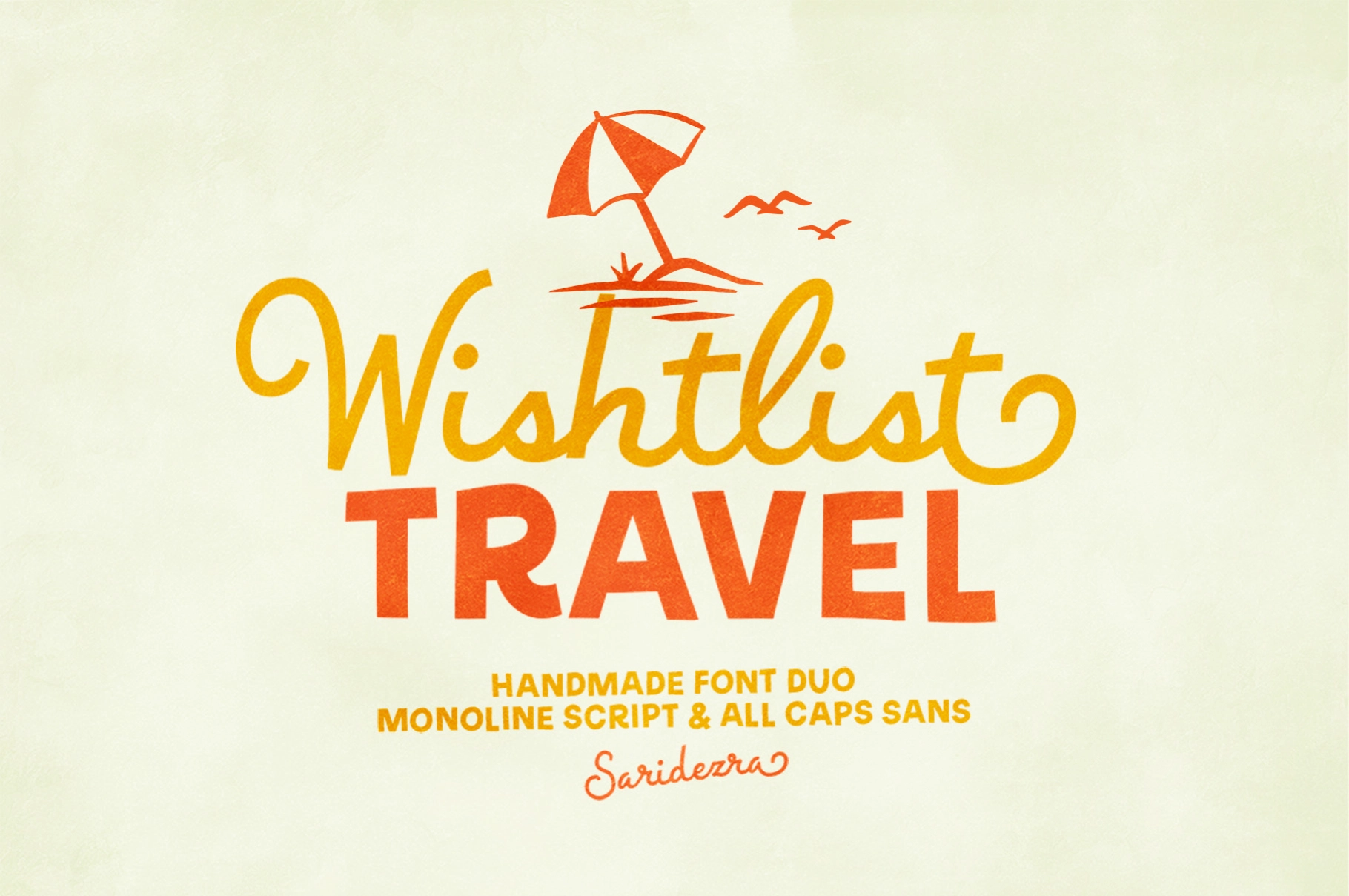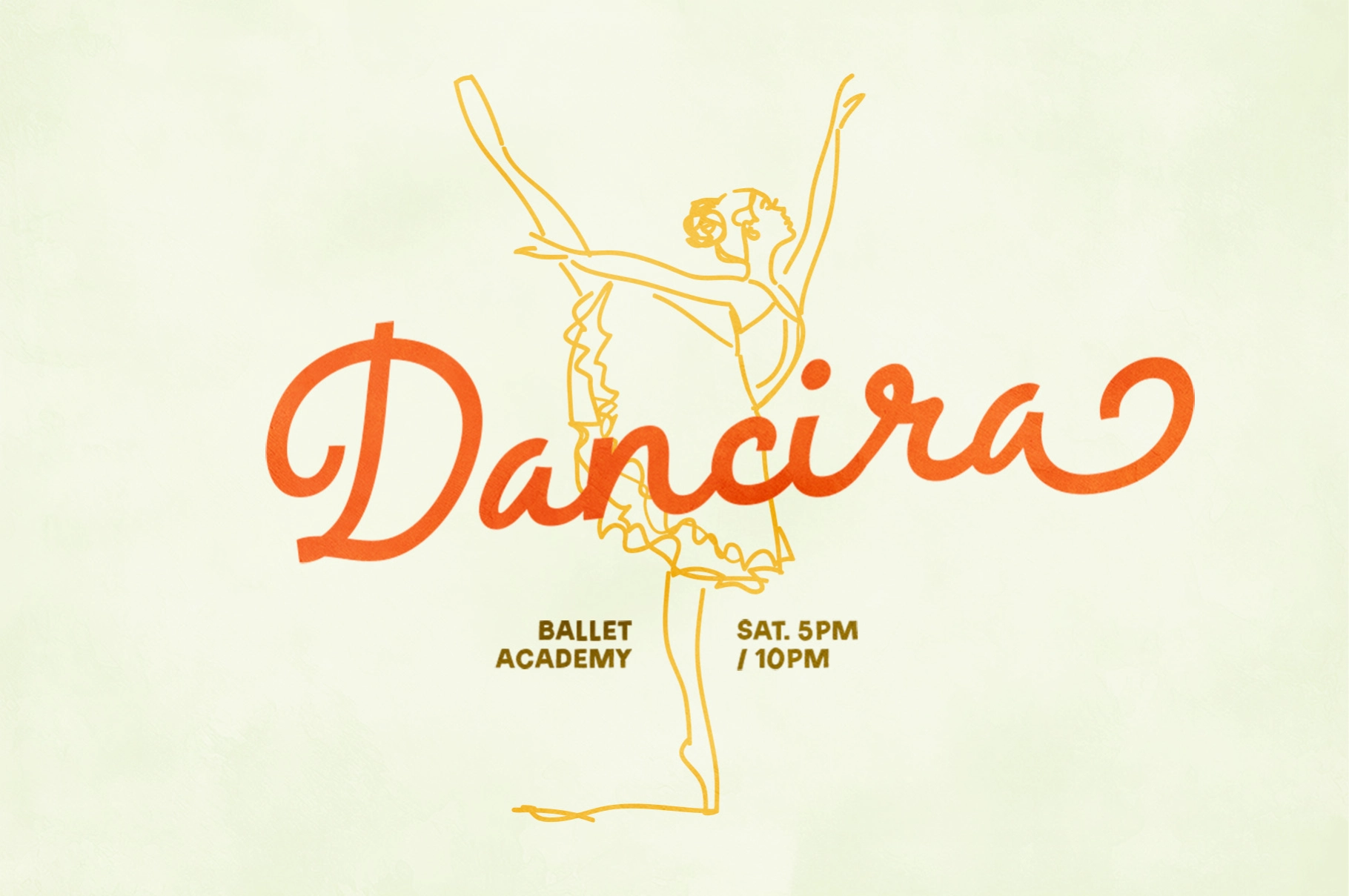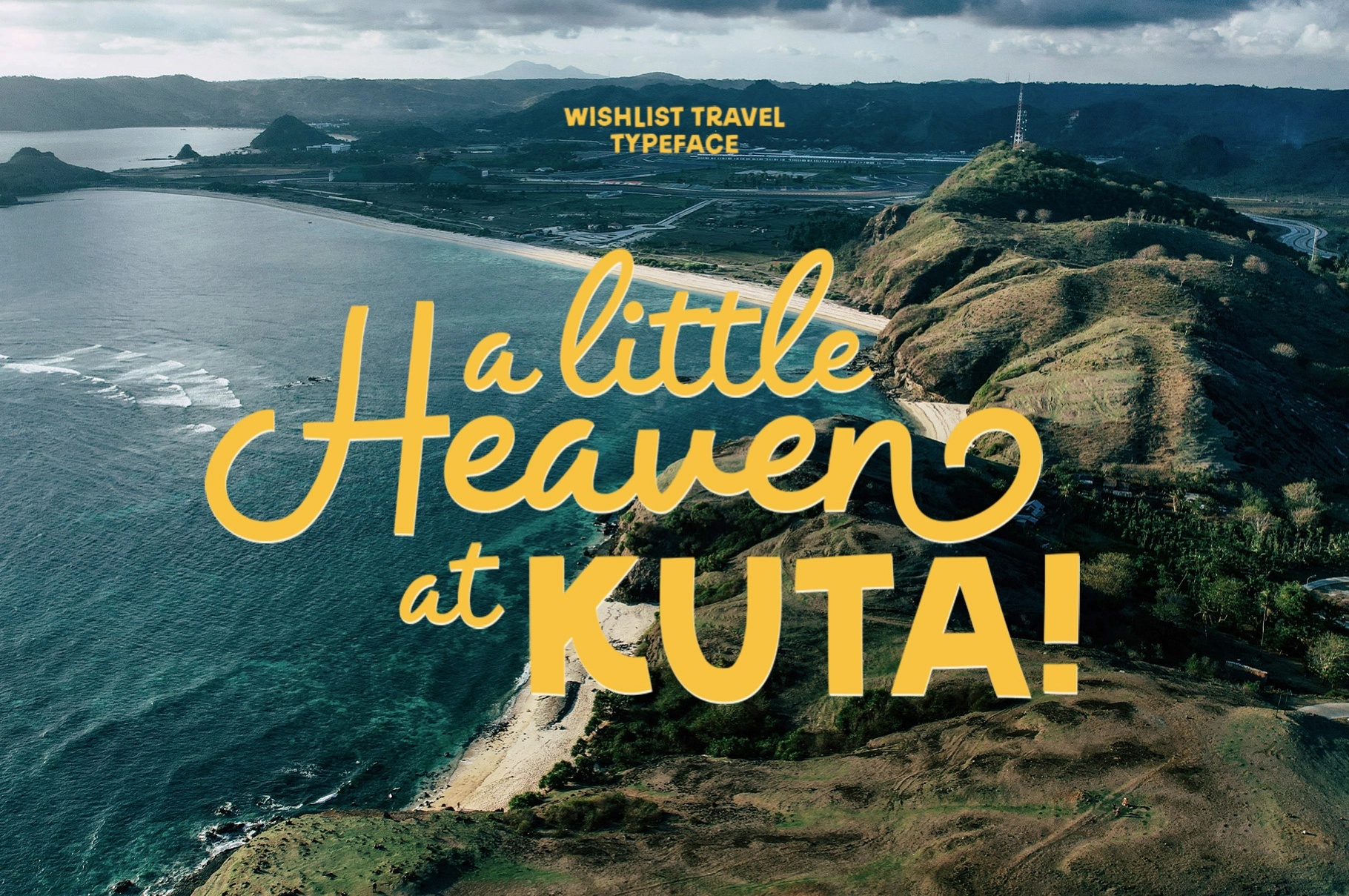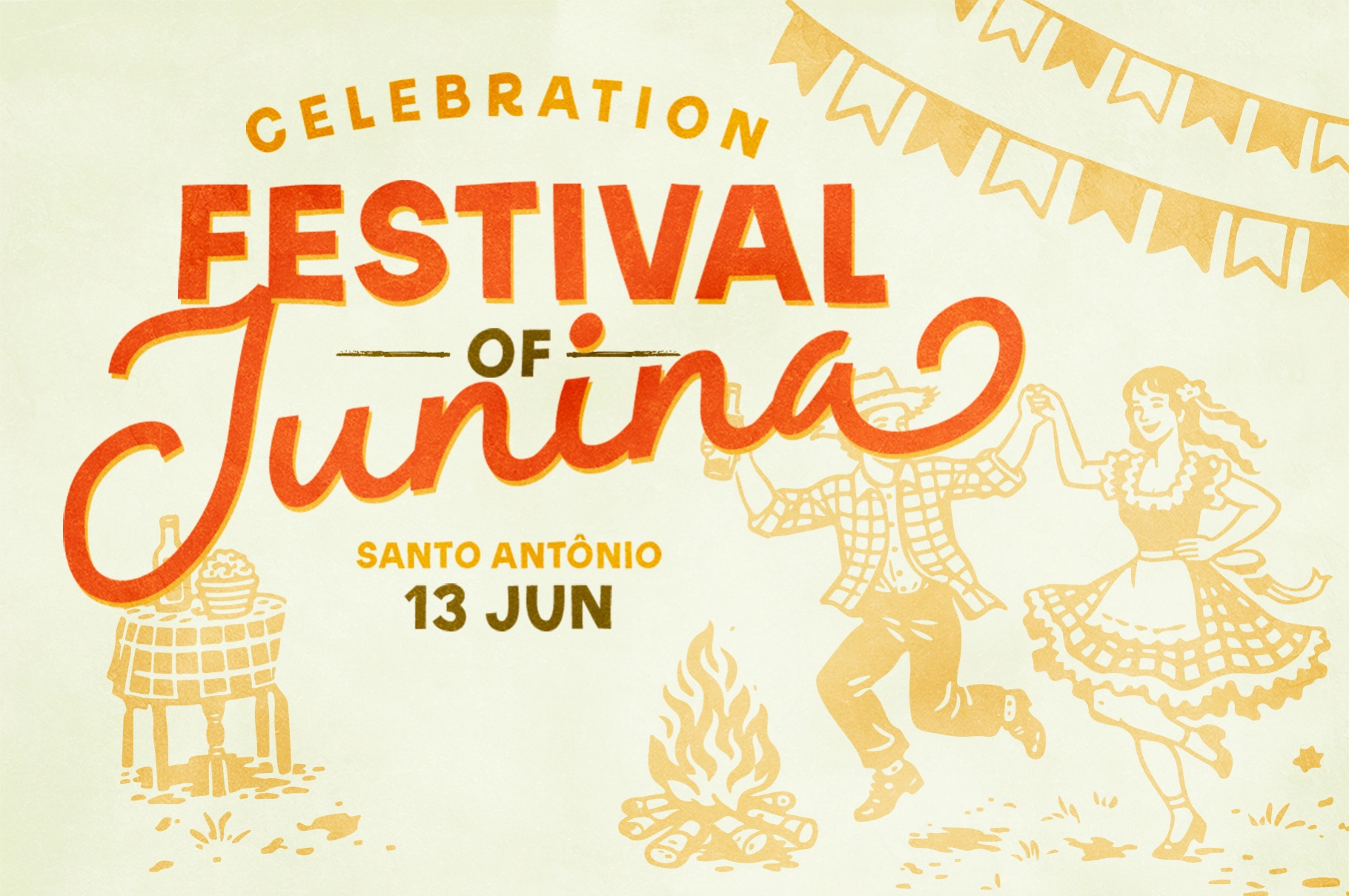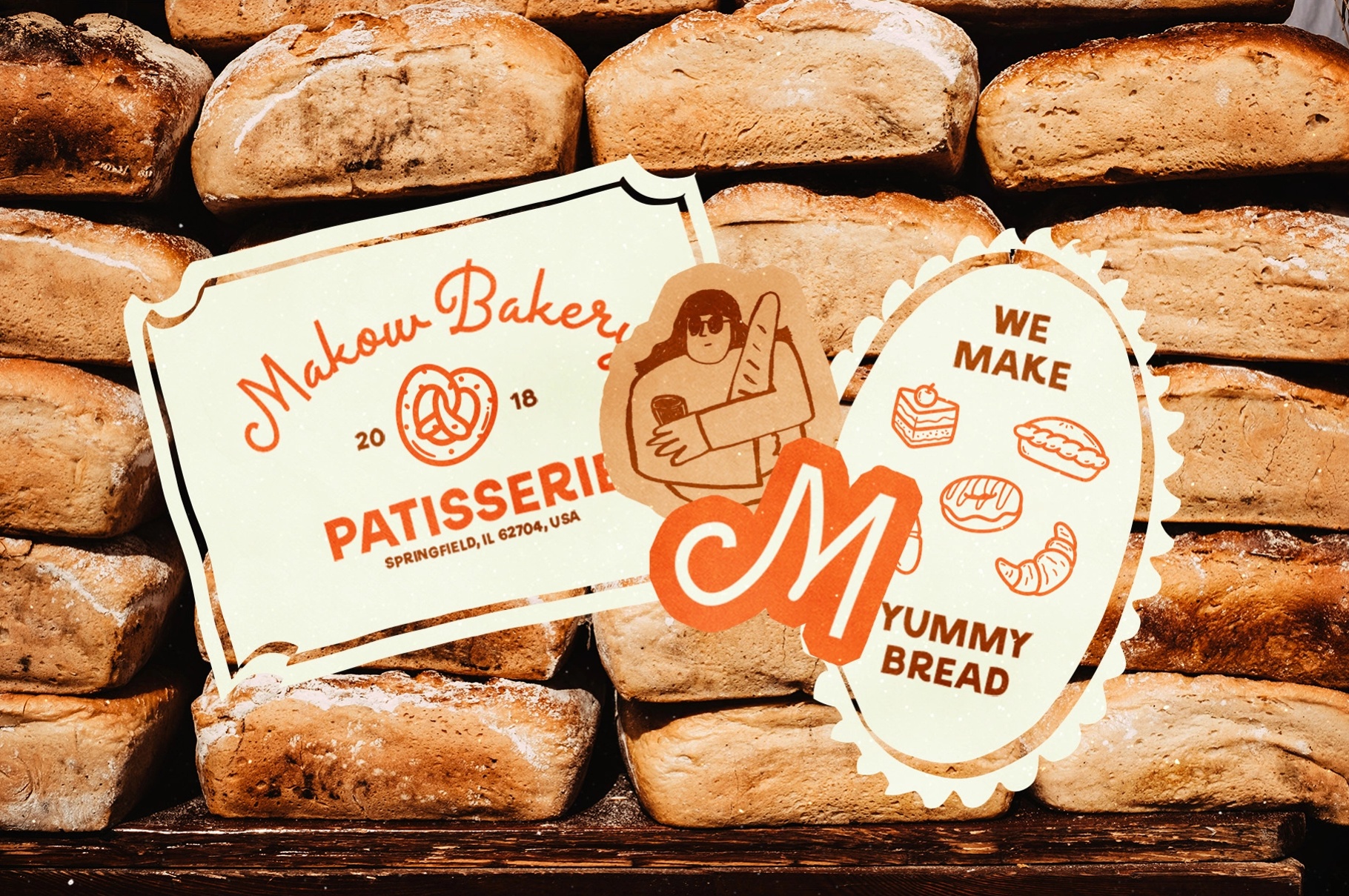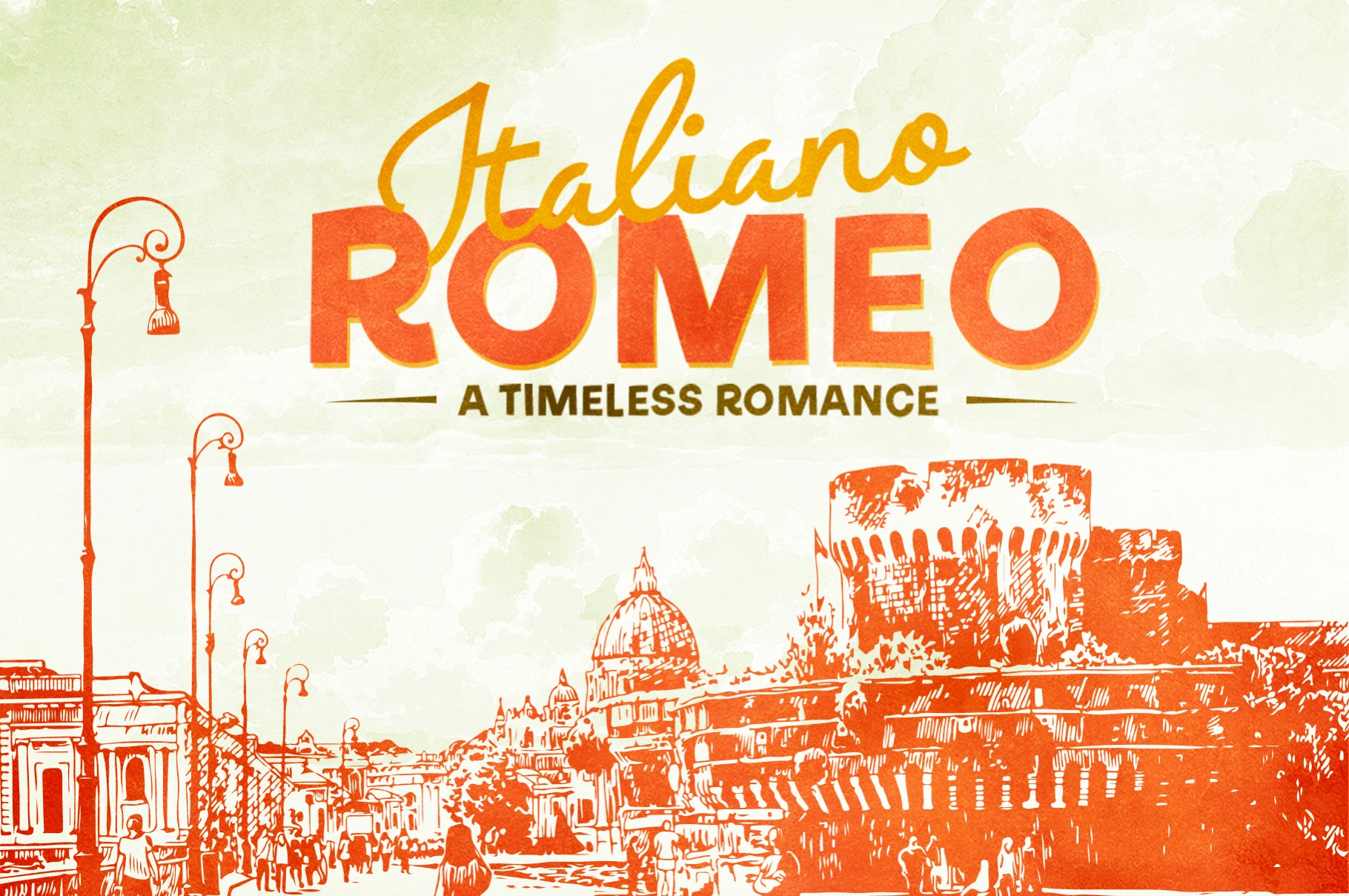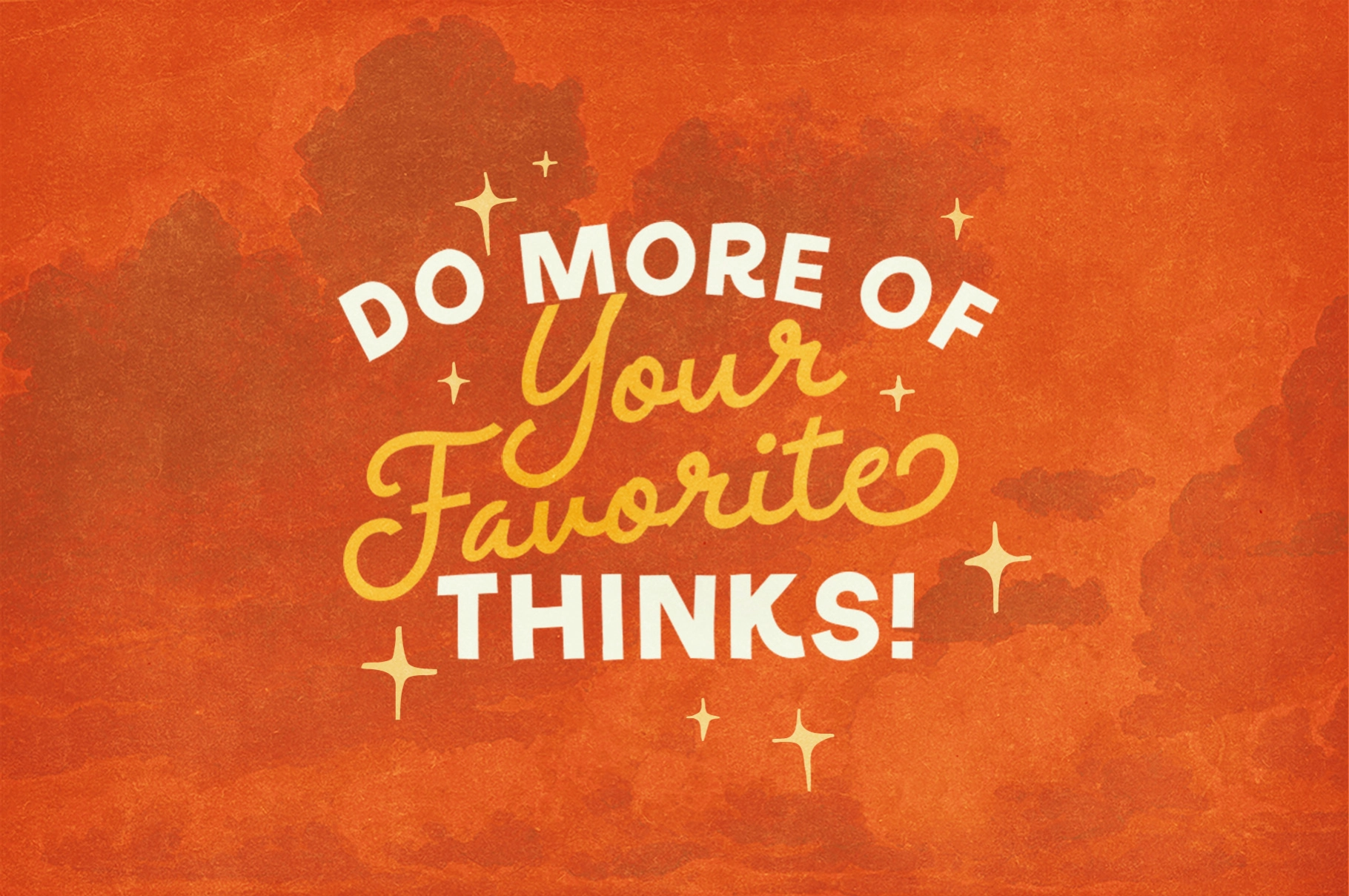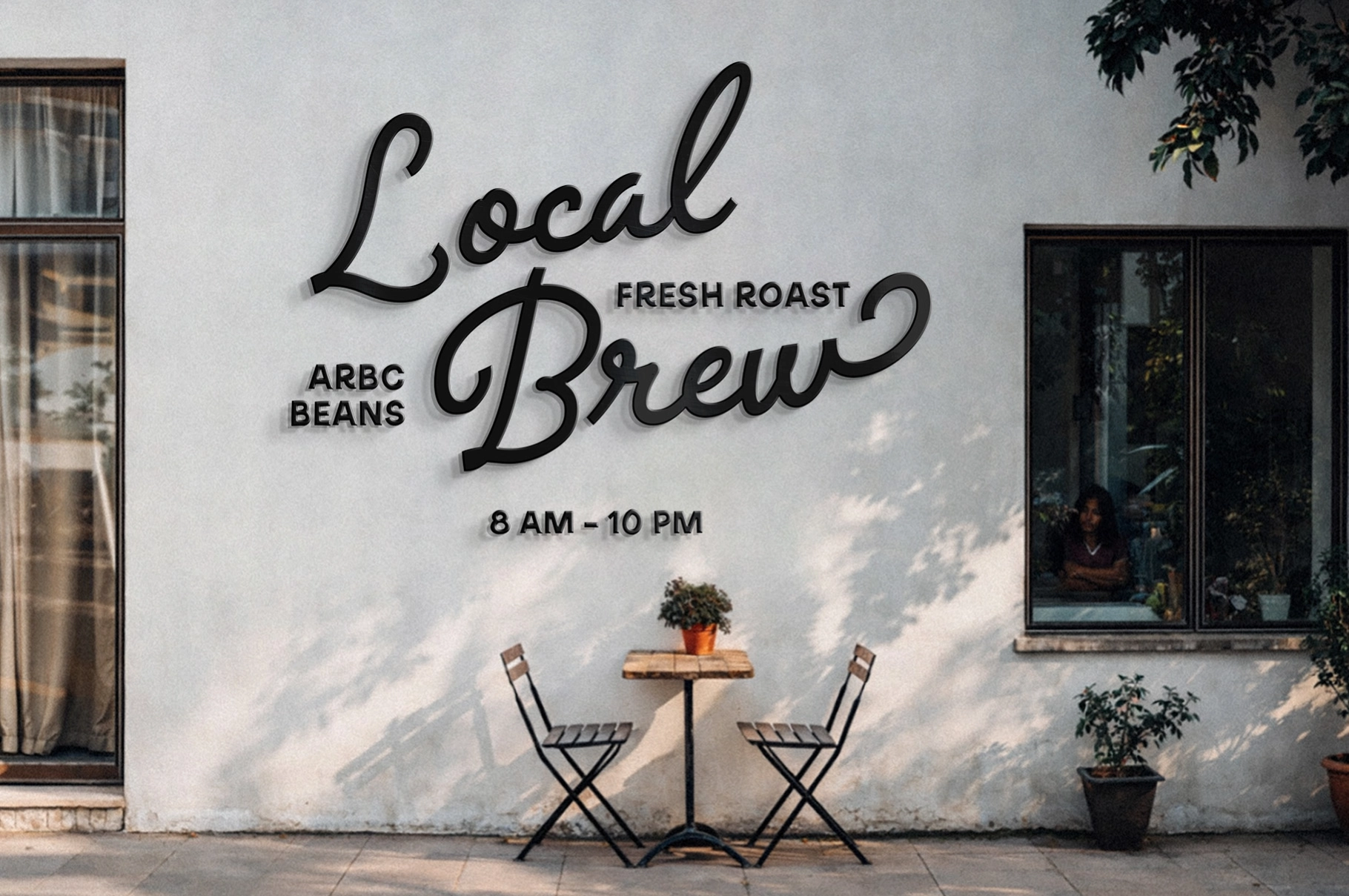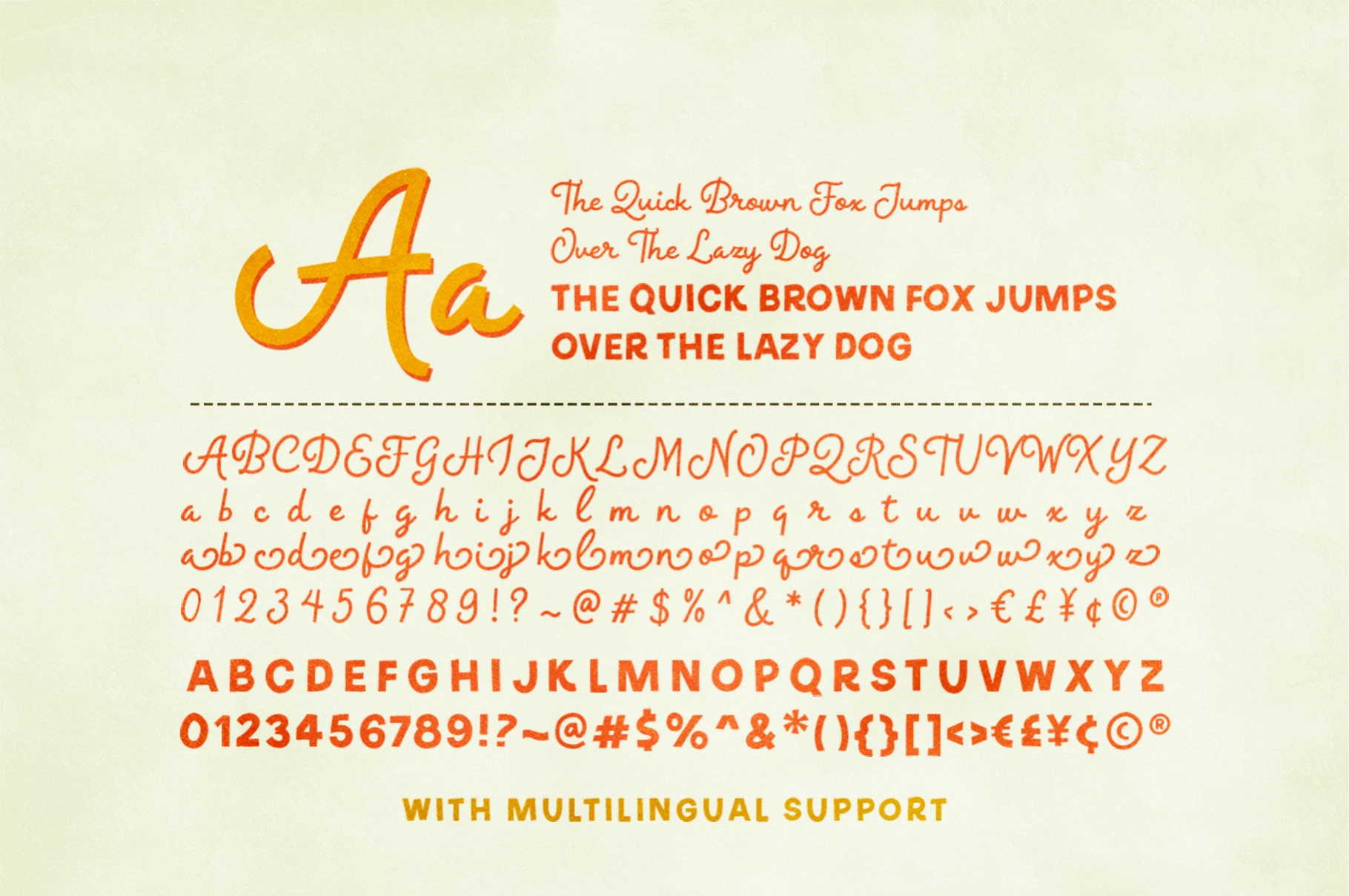
Wishlist Travel - Handmade Travel Font Duo
This handwritten font duo pairs a smooth monoline script with a bold all-caps sans serif, giving layouts an easy mix of charm and clear structure. The script has rounded strokes, lively swashes, and ending alternates, while the sans brings a sturdy contrast for titles, labels, and supporting text.
Wishlist Travel is made for travel posters, holiday cards, wedding invitations, logotypes, quote graphics, postcards, souvenir branding, café menus, festival artwork, packaging, social media posts, stickers, greeting cards, and more. The duo works especially well for warm destination themes, cheerful event graphics, and nostalgic lettering compositions with a sun-faded print character.
- Monoline Script & All Caps Sans
- Ending Alternates
- Numerals, Punctuation & Symbols